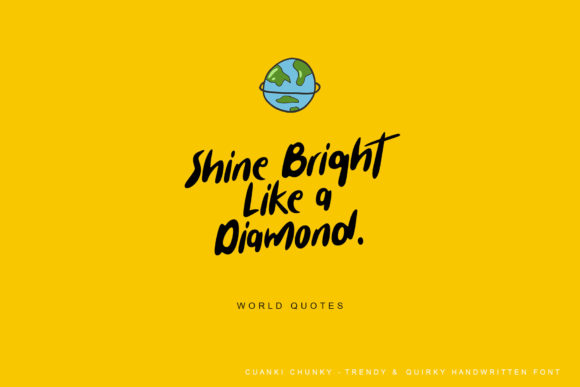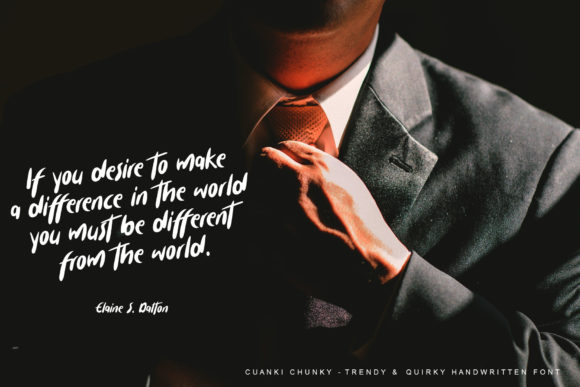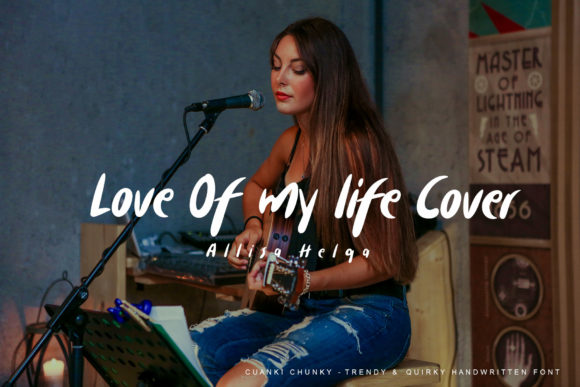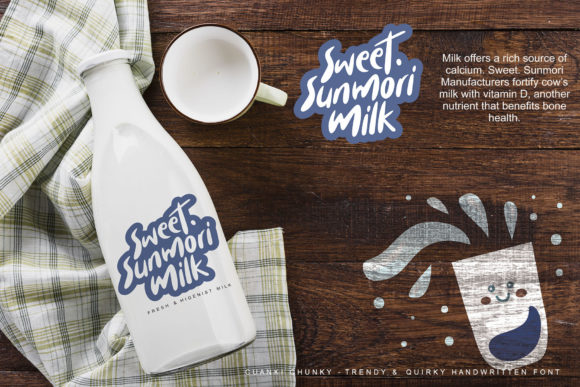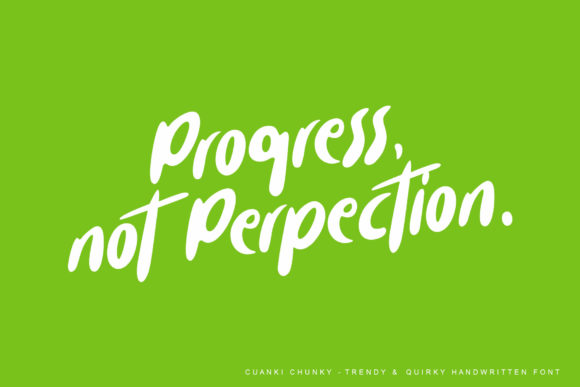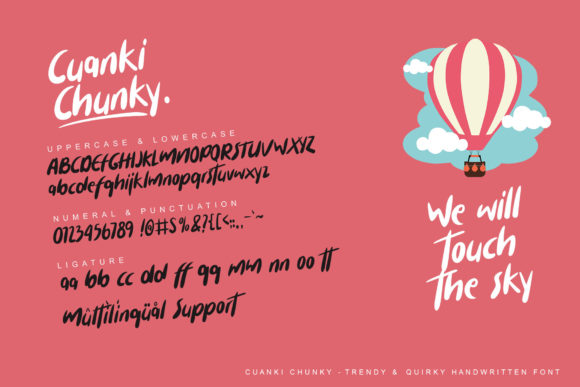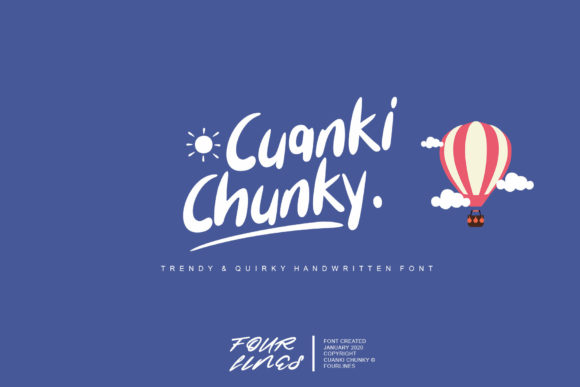
Introducing Cuanki Chunky: The Trendy Handwritten Font for Creative Designs
In the world of typography, fonts play a crucial role in making or breaking a design. A perfect font can elevate your project from ordinary to extraordinary, and Cuanki Chunky is one such gem. This trendy handwritten font has been making waves in the design community, and for good reason. Its natural and unique style makes it incredibly fitting for a wide range of designs, from wedding invitations to social media posts.
The Charm of Cuanki Chunky
Cuanki Chunky boasts a distinctive, handcrafted look that sets it apart from more traditional fonts. Its chunky, rounded letters exude a sense of warmth and friendliness, making it perfect for designs that require a personal touch. Whether you’re creating a wedding invitation, a greeting card, or a social media post, Cuanki Chunky adds a touch of whimsy and playfulness that is sure to captivate your audience.
One of the best things about Cuanki Chunky is its versatility. This font can be used in a multitude of design projects, including:
- Wedding Invitations: Create beautiful, one-of-a-kind wedding invitations that set the tone for the big day. Cuanki Chunky’s elegant, handwritten style is perfect for formal and informal weddings alike.
- Stationary Art: Add a touch of personality to your stationery with Cuanki Chunky. From letterheads to journals, this font is sure to make your stationery stand out.
- Social Media Posts: Make your social media posts more engaging with Cuanki Chunky. Its playful, eye-catching style is perfect for grabbing the attention of your followers.
- Greeting Cards: Create cute and personalized greeting cards for any occasion. Cuanki Chunky’s friendly, approachable style makes it perfect for birthdays, holidays, and more.
Why Choose Cuanki Chunky?
With so many fonts available, why choose Cuanki Chunky? Here are just a few reasons why designers and crafters love this font:
- Unique Style: Cuanki Chunky has a one-of-a-kind style that will set your designs apart from the rest.
- Ease of Use: This font is incredibly easy to use, even for those who are new to design.
- High-Quality: Cuanki Chunky is a high-quality font that is perfect for both personal and commercial projects.
Tips for Using Cuanki Chunky
To get the most out of Cuanki Chunky, here are a few tips to keep in mind:
- Experiment with Colors: Cuanki Chunky looks great in a variety of colors, so don’t be afraid to experiment and find the perfect hue for your design.
- Mix and Match: Combine Cuanki Chunky with other fonts to create a unique and eye-catching design.
- Keep it Simple: Don’t overcomplicate your design. Cuanki Chunky’s natural style shines best when paired with simple, clean graphics.
Cuanki Chunky is a trendy handwritten font that is sure to take your designs to the next level. Its unique style, versatility, and ease of use make it a must-have for designers and crafters. Whether you’re creating wedding invitations, social media posts, or greeting cards, Cuanki Chunky is the perfect choice. So why wait? Get inspired by its authentic feel and start creating gorgeous designs today!